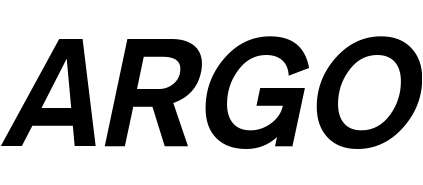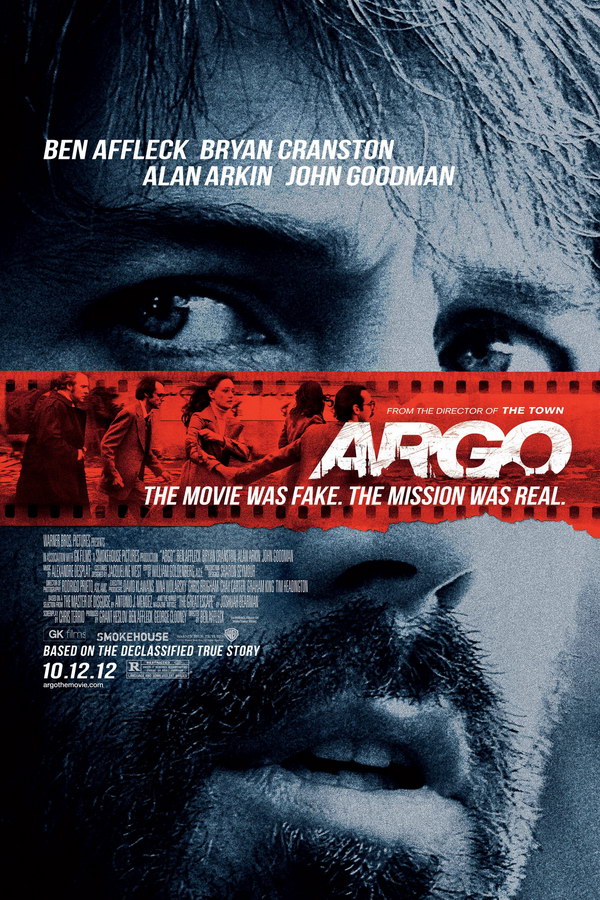
Argo Font
DramaArgo is a 2012 American historical drama film directed by Ben Affleck, based on the true story of a CIA operative who helped rescue six American diplomats during the 1979 Iran hostage crisis by disguising them as a Hollywood film crew.
The poster's movie title "Argo" was created using Akzidenz Grotesk Std Ext Bold Italic font, and features added scratch effects for a unique aesthetic. Akzidenz Grotesk is a proprietary typeface, and further information about it can be found here.